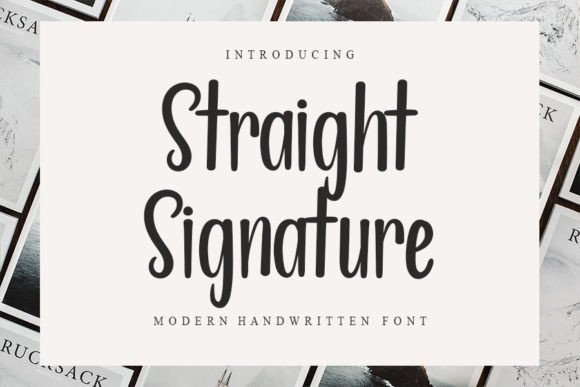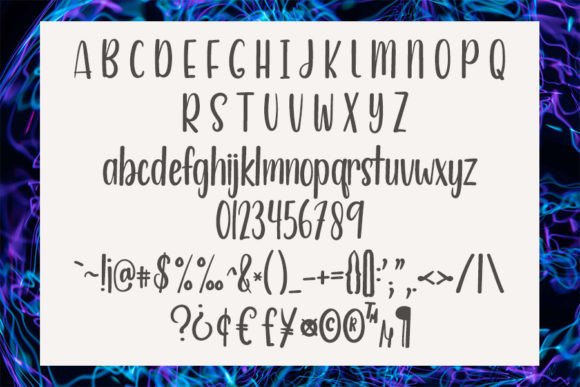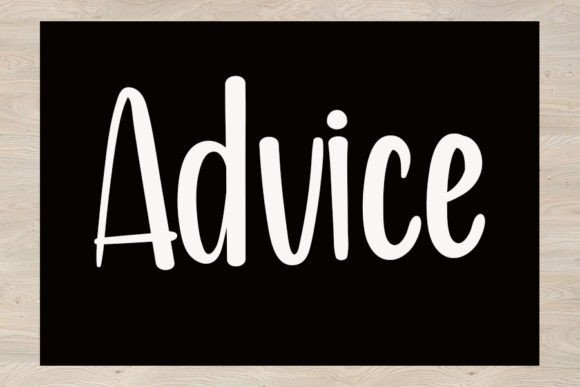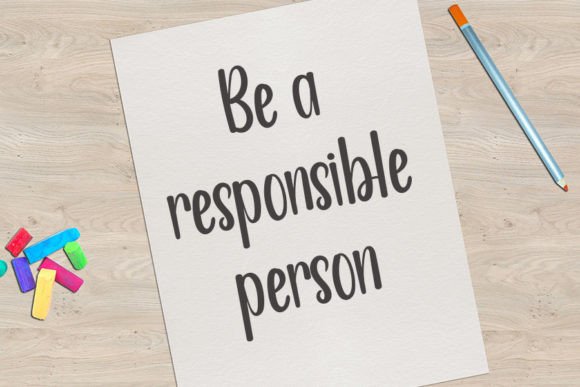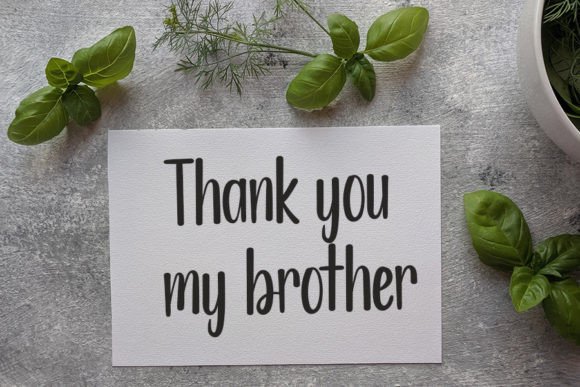
Straight Signature Font
About Straight Signature Font
Straight Signature is a slim and delicate handwritten font. Dainty and joyful, this font will be ideal for writing wedding invitations, cards, or any other design that may need a romantic, personalized touch!